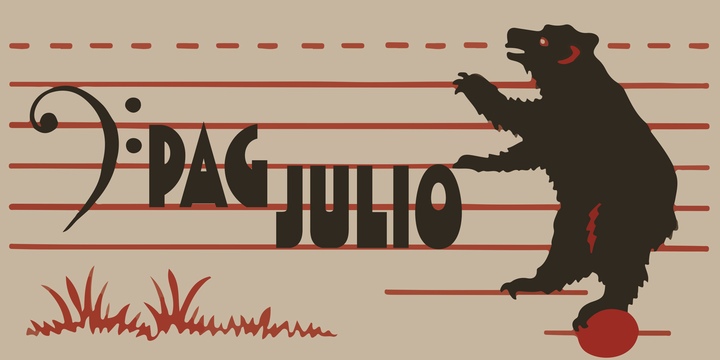
PAGJulio Font
PAGJulio Font is perfect for modern corporate branding, professional presentations, business communications, contemporary magazines, tech company identities, clean web design, systematic signage, progressive organizations, institutional materials, sleek product packaging, administrative documents, and forward-thinking corporate identities.
What makes PAGJulio Font exciting is its contemporary professionalism that embodies modern business excellence through clean, confident letterforms that project authority and innovation. This distinguished typeface represents the evolution of corporate typography, combining geometric precision with subtle humanist touches that create the perfect foundation for progressive organizations and forward-thinking businesses. The font's systematic approach and technical refinement make it ideal for companies that need to communicate competence and reliability while maintaining contemporary relevance. Its professional character ensures consistent brand expression while providing the clarity essential for complex business communications and institutional applications.
The PAGJulio Font family includes light, regular, medium, and bold weights, each available with corresponding italic styles. The comprehensive family features professional alternates, systematic ligatures, and contemporary design elements that enhance the font's corporate character and provide designers with complete business typography solutions for comprehensive brand systems.
Whether you're developing corporate brand identities, creating business marketing materials, or designing institutional communications, PAGJulio Font Free Download delivers the professional authority your contemporary business projects demand. This premium typeface excels in environments where credibility and modern sophistication are fundamental to organizational success and stakeholder confidence. The font's corporate qualities work magnificently across digital platforms and professional print applications, making it an indispensable asset for designers serving business and institutional markets. Progressive companies and professional service firms choose this font for its ability to communicate innovation while maintaining perfect reliability and business credibility. The comprehensive character set supports multiple languages and includes specialized business symbols, expanding its versatility for international corporate applications and multilingual professional communications. Professional designers appreciate its systematic design approach and consistent performance across all weights and business applications. When you implement this exceptional typeface in your corporate communications, you're selecting a typography solution that celebrates business excellence and professional innovation, ensuring your brand communicates authority, reliability, and forward-thinking vision while maintaining the contemporary credibility essential for success in competitive business markets and professional industries that demand both functional excellence and modern aesthetic appeal in their organizational communications and brand positioning strategies.